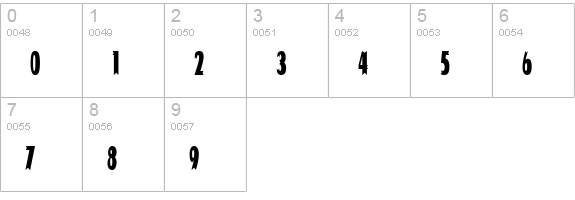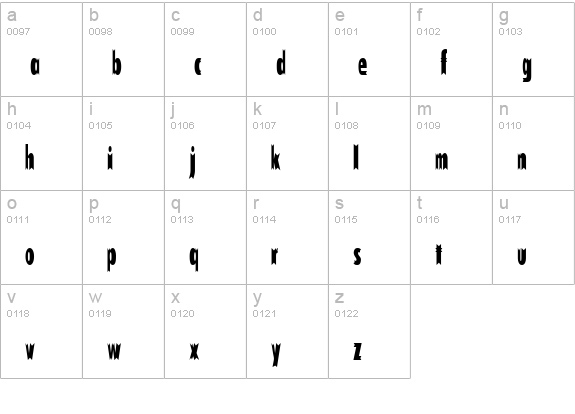
Tofu Font Details
Introducing Tofu font, an exquisite typographic masterpiece that seamlessly blends elegance and modernity. Crafted with meticulous attention to detail, this font exudes a unique charm that will captivate any reader. Tofu font is a versatile typeface that can effortlessly adapt to various design projects, whether it be for branding, advertising, packaging, or editorial purposes. Its clean and crisp lines exude a sense of sophistication, making it perfect for both professional and creative endeavors. One of the most remarkable aspects of Tofu font is its versatility. It effortlessly transitions from bold headlines to delicate body text, ensuring that your message is conveyed with utmost clarity and impact. Its wide range of weights and styles allows for endless creative possibilities, empowering designers to bring their visions to life. In addition to its stunning aesthetics, Tofu font also offers a seamless user experience. Its legibility and readability ensure that your audience can effortlessly engage with your content, making it an ideal choice for websites, mobile applications, and print materials. And the best part? Tofu font is available for free download at FontsMarket.com, a trusted platform for high-quality fonts. With just a few clicks, you can elevate your designs and create a lasting impression, all without breaking the bank. So, whether you're a seasoned designer or a passionate enthusiast, Tofu font is the perfect companion for your creative journey. Download it today and unleash your creativity with this stunning typeface that seamlessly blends style and functionality.